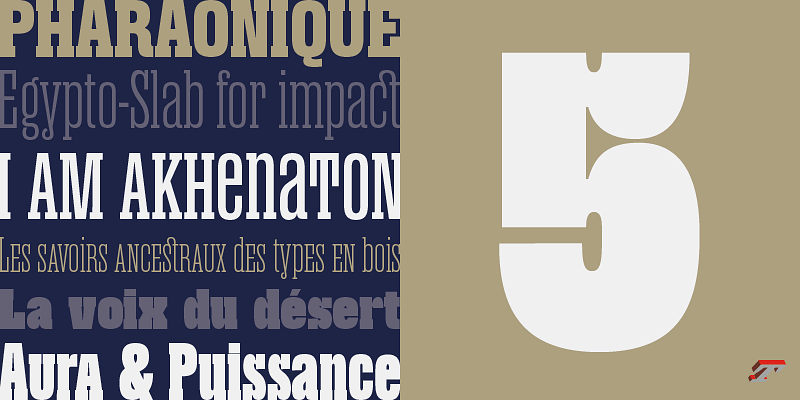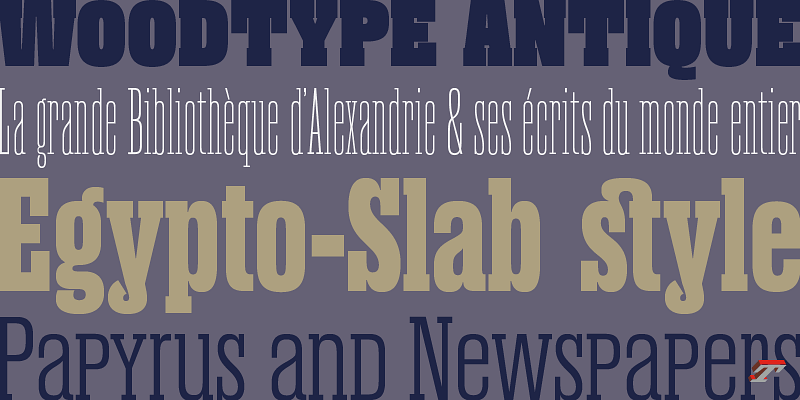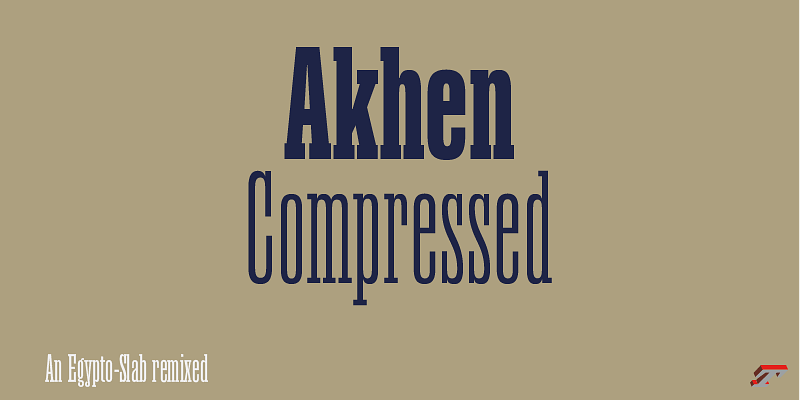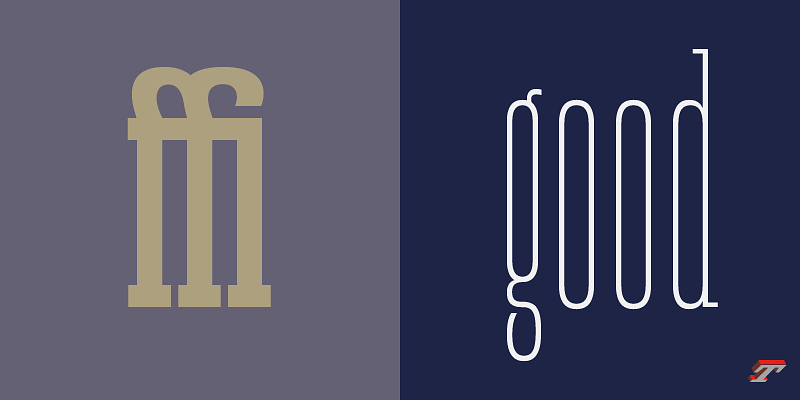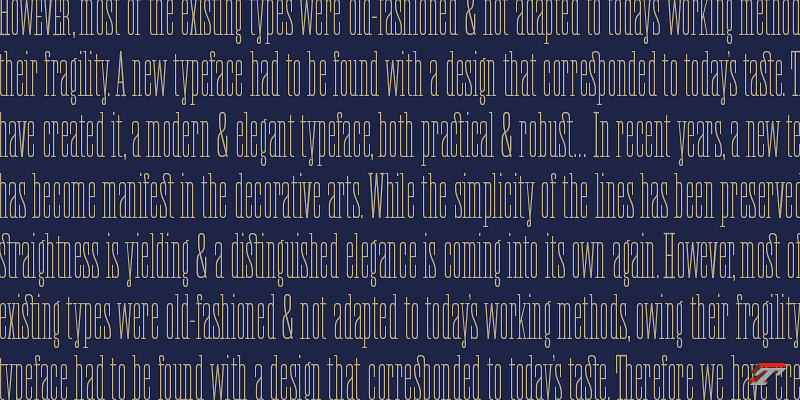
Akhen is a typeface family formed of three condensed widths, each available in various weights. Inspired by the French metal and wood types of the 19th century, it adds a touch of solidity to any art direction.
This égyptienne typeface (mécane in the Vox-ATypI classification) with its tight spacing is perfect for asymmetrical layouts. Its rigorous design and short serifs make it a great choice for creating unique and visually appealing designs. The narrow width and precise alignment of terminals and serifs between the weights and widths make very large headlines more striking.
The text will be powerful, whether used for editorial projects, posters or visuals for social media.